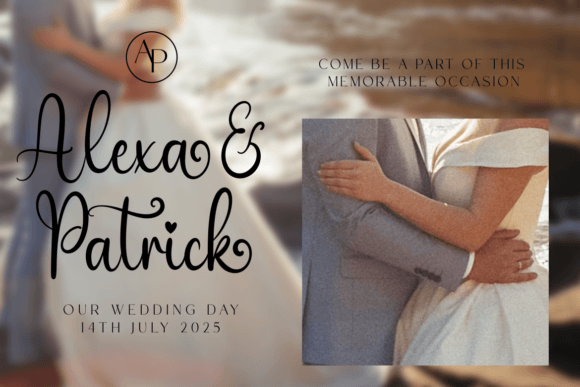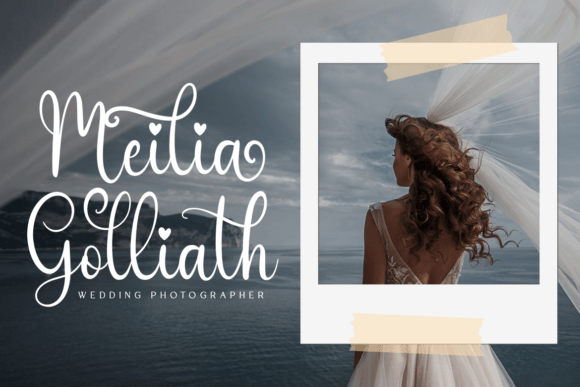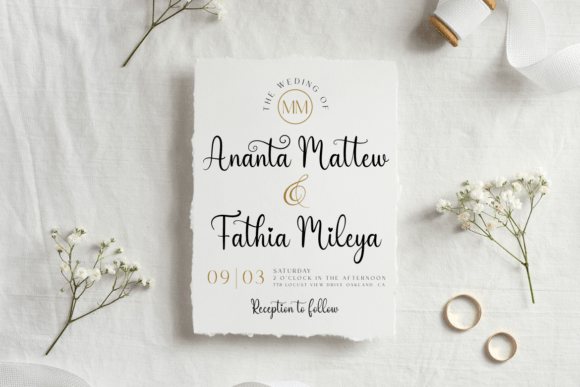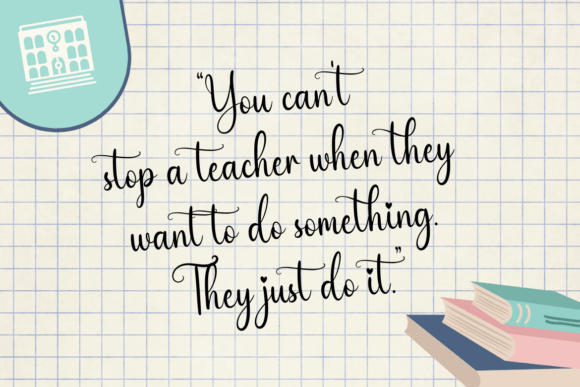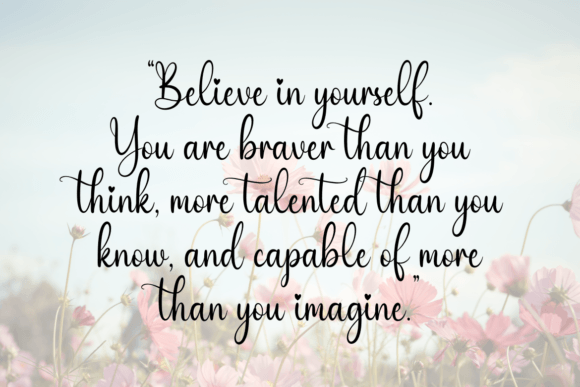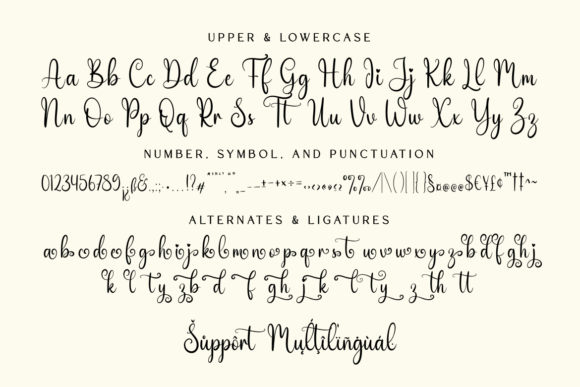
Introducing Clayton Font: Where Elegance Meets Creativity
Have you ever found yourself stuck in a design rut, searching for that perfect font to elevate your project? We’ve all been there – pouring over font libraries, trying to find the elusive combination of style and sophistication that will make our designs truly shine. And then, it happens: a spark of inspiration, a glimpse of something breathtaking, and suddenly, your creativity is ignited.
Enter Clayton Font, your new go-to tool for crafting designs that exude refinement and poise. This meticulously handcrafted font is more than just a pretty face – it’s a key to unlocking your full creative potential. With its alternate options and multilingual support, Clayton Font empowers you to push the boundaries of design and create truly unique and captivating work.
Key Features of Clayton Font
- Size and Resolution: The font is available in 1 font weight and comes in 2 different font styles. It is designed for use at 72 dpi (dots per inch) and is suitable for digital use.
- Unique Characteristics: Clayton Font has a unique, hand-drawn feel with subtle imperfections, giving it a warm and inviting appearance.
- Script and Language Support: The font supports Latin script and is compatible with a wide range of languages, including English, Spanish, French, and many others.
- Font Size and Line Spacing: The font is designed to work well at a variety of font sizes, from 8 points to 48 points, and has been optimized for use with standard line spacing.
- Font Pairing: Clayton Font pairs well with a variety of other fonts, including serif and sans-serif fonts, making it a versatile choice for designers and typographers.
Design Review: Clayton Font
Overall, I was quite impressed with the Clayton font. It’s a versatile and elegant script font that works well in a variety of settings, from elegant invitations to modern web design. ✨
- The Clayton font has a beautiful, flowing script style that adds a touch of sophistication to any design. ✨
- The font is highly legible, even at smaller font sizes, making it perfect for body text or headings. ✨
- The font family includes a range of weights and styles, allowing designers to create a cohesive look across different elements of a design. ✨
- The Clayton font can be quite ornate, which may not be suitable for designs that require a more minimalist or straightforward approach. ⚠️
- The font may not be as readable on certain devices or in certain situations, such as when viewed on a small screen or in a low-light environment. ⚠️
In terms of overall impression, I would say that the Clayton font is a great addition to any designer’s toolkit. While it may not be suitable for every project, it’s a versatile and elegant font that can add a touch of sophistication to a wide range of designs.
Clayton Font Practical Application Guide
Getting the Most Out of Clayton Font
Use Clayton Font for titles, headings, and body text to create a cohesive and professional design. Experiment with different font sizes and styles to create visual hierarchy and emphasis. You can also pair Clayton Font with other fonts to create a unique and eye-catching design.
Clayton Font is suitable for a variety of applications, including:
- Business reports and presentations
- Editorial and publishing content
- Website and app design
Alternatives to Clayton Font
Alex Brush is a calligraphic script font that mimics the style of hand-painted brushwork. It is ideal for use in creative, artistic, and elegant designs where a touch of sophistication is required. Alex Brush is more elegant and refined compared to Clayton Font, which has a more rugged and casual feel.
Carolyna Pro is a modern script font with a touch of elegance and sophistication. It is suitable for use in branding, advertising, and editorial designs where a sense of luxury and refinement is desired. Carolyna Pro is more polished and refined compared to Clayton Font, which has a more casual and relaxed feel.
Playfair Display is a luxurious, high-end script font with a touch of classic elegance. It is ideal for use in high-end branding, advertising, and editorial designs where a sense of sophistication and refinement is required. Playfair Display is more formal and elegant compared to Clayton Font, which has a more casual and relaxed feel.